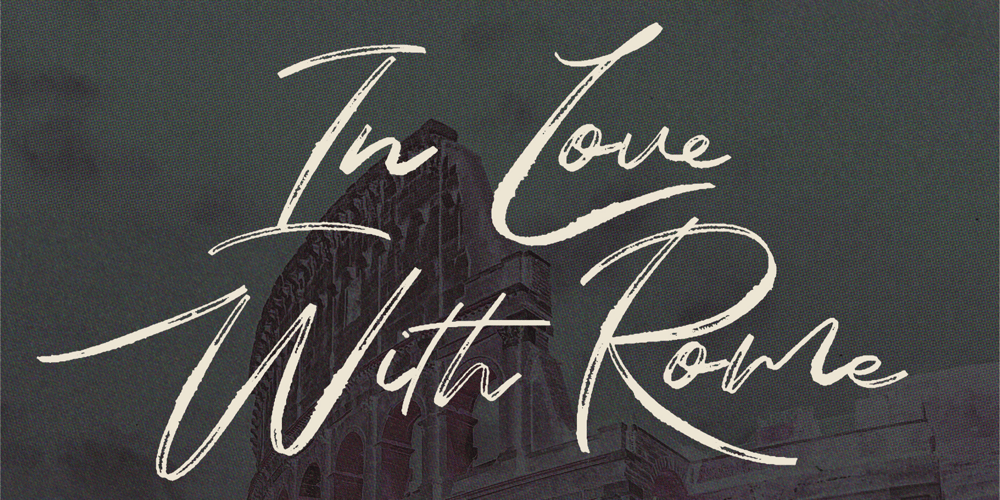
In Love With Rome Font Family was designed by SilverStag and published by SilverStag. In Love With Rome contains 1 styles and family package options. I am so happy to introduce my brand new handwritten font that exudes chic elegance like no other – meet In Love With Rome Script. Every single letter has been lovingly crafted by hand, resulting in a stunningly unique typeface that’s perfect for anyone looking to add a touch of sophistication to their designs. With 274 alternate letters and ligatures, you’ll have all the tools you need to create truly one-of-a-kind pieces.But what sets this font apart isn’t just its beauty – it’s also incredibly versatile. Whether you’re working on a wedding invitation, a branding project, or simply adding some flair to your social media posts, this font is the perfect choice. It’s feminine, cool, and it strikes the perfect balance between modern and classic. So if you’re looking for a font that’s as beautiful as it is functional, look no further!In Love With Rome Script Font Includes: Over 274 Ligatures and Alternates Full Language Support Lowercase and Uppercase letters Numerals & Punctuation Web Font Kit is Included as Well NOTE: Ligatures are supported in most desktop programs including Photoshop, Illustrator, InDesign, Word, Pages & Keynote. Most of them will have this option automatically switched on. If you’re using Canva, ligatures are not supported out of the box, however, I have included detailed instructions on how you can use them for your designs as well!Happy creating everyone!